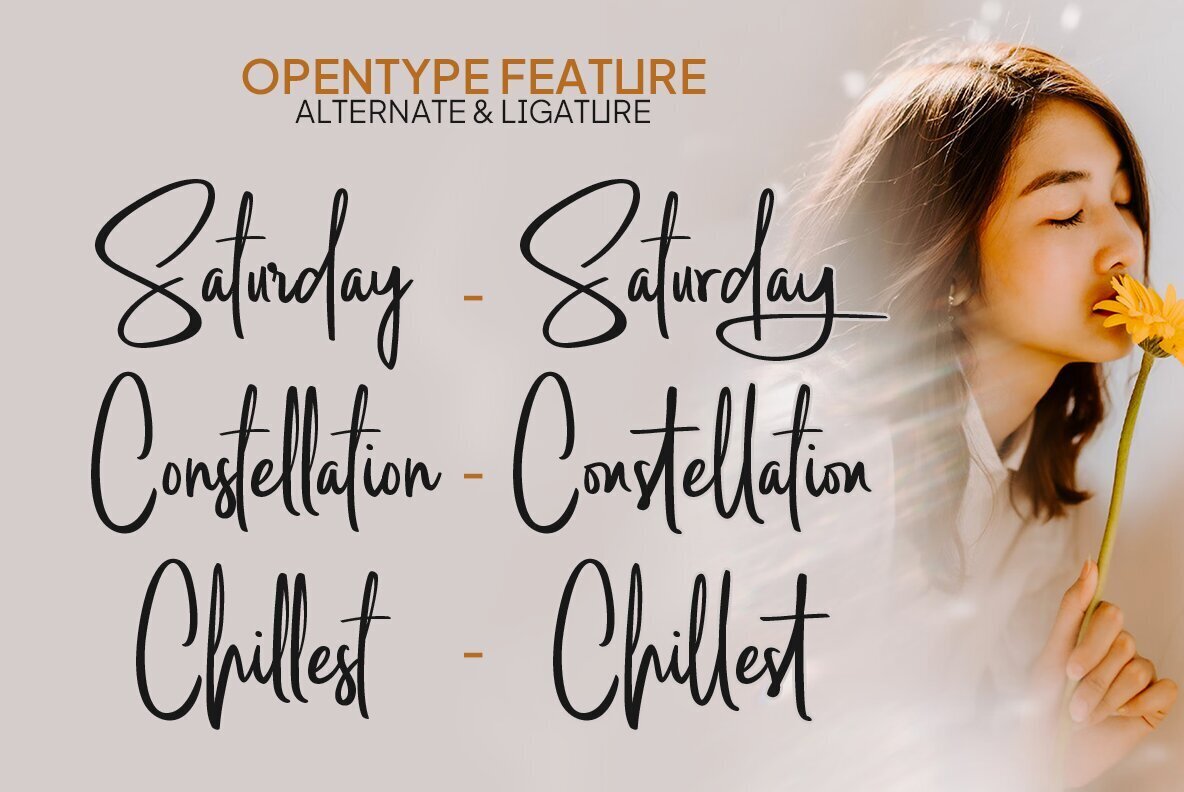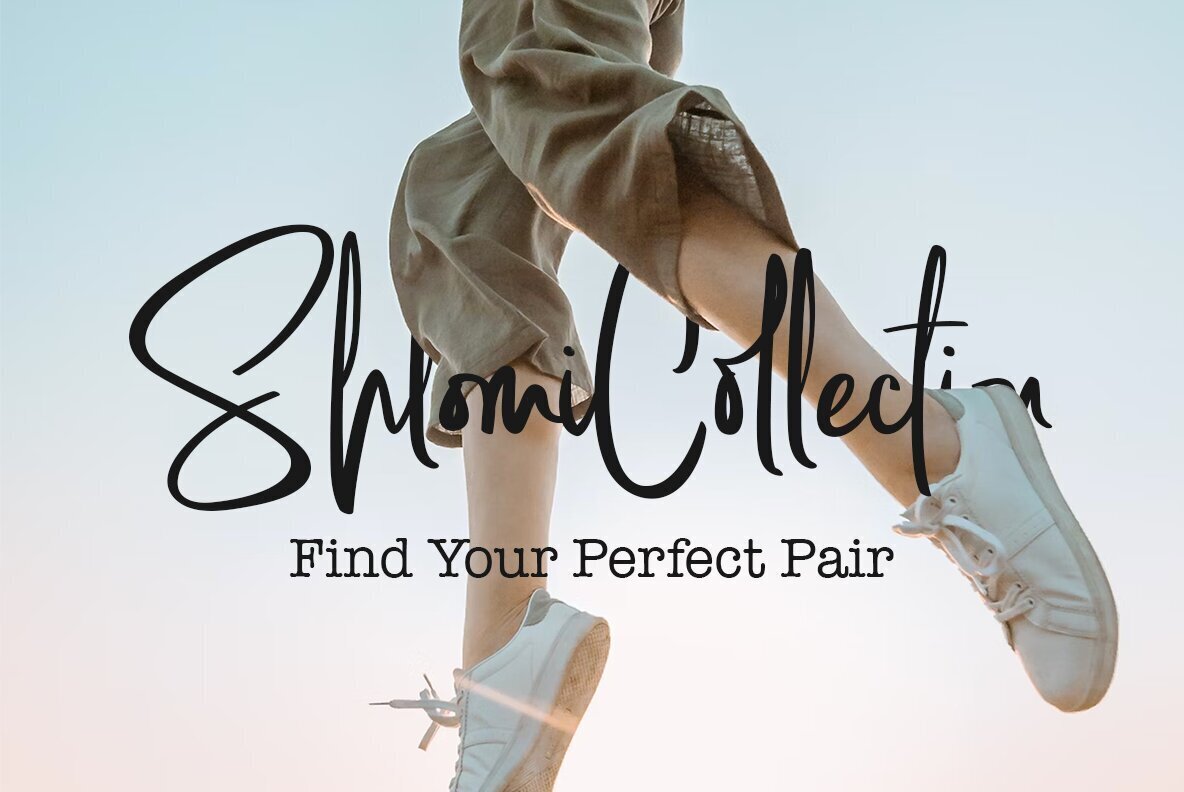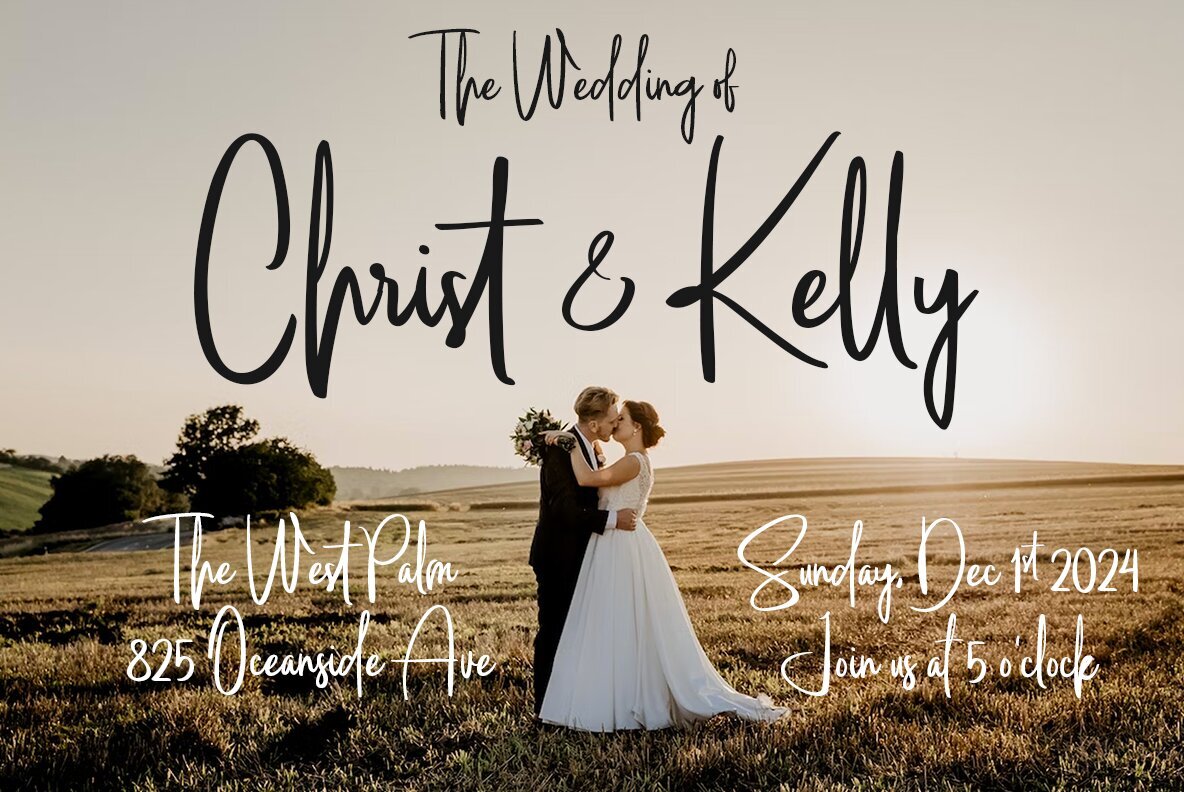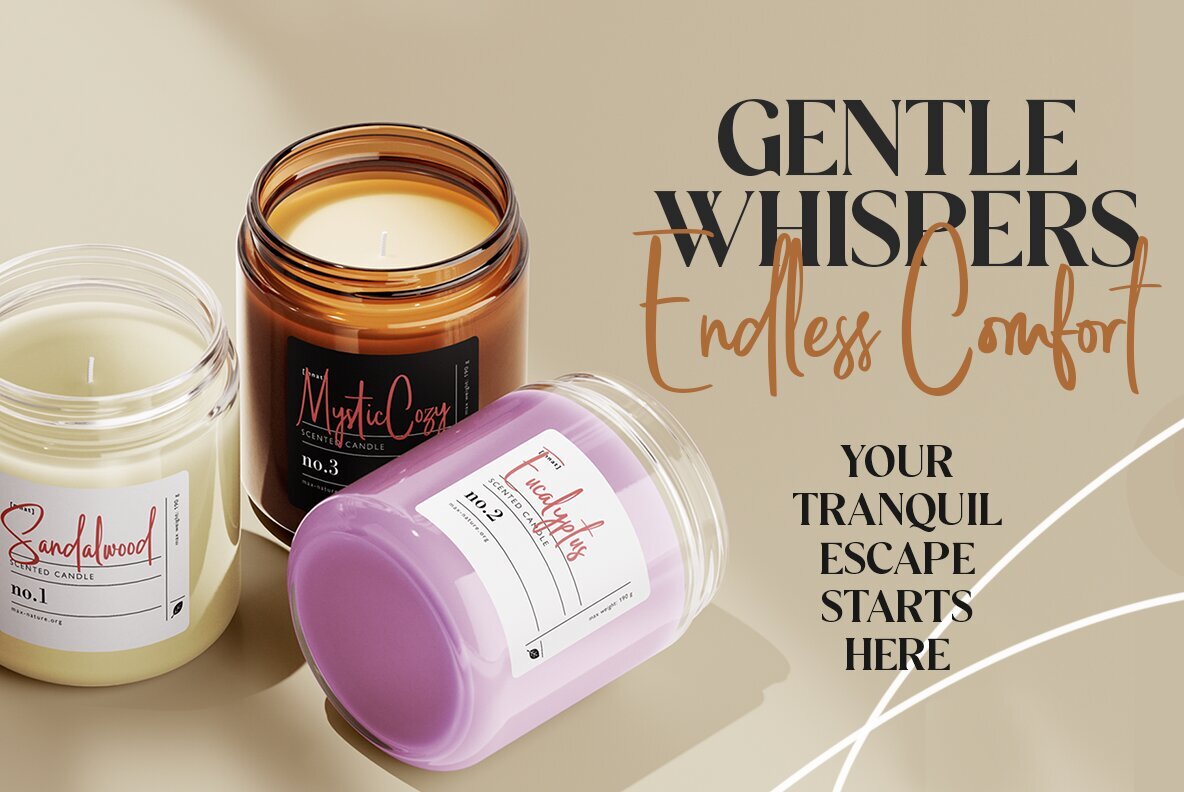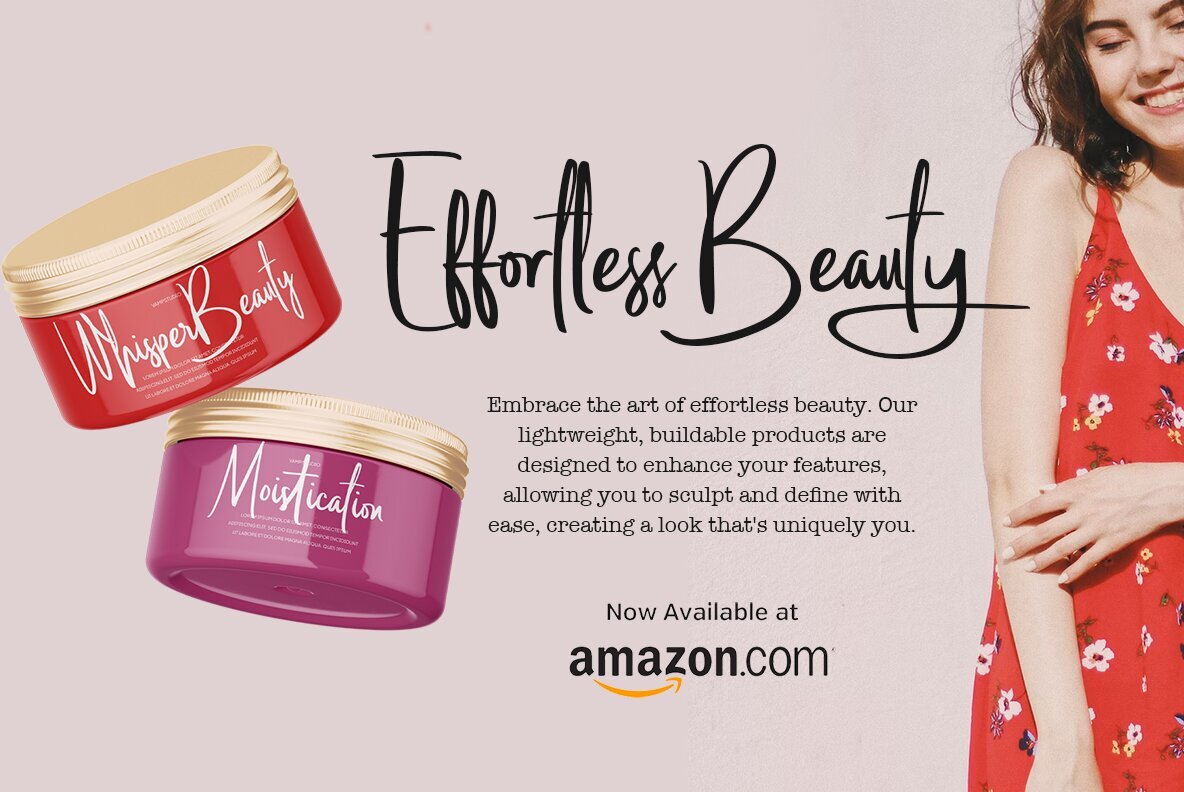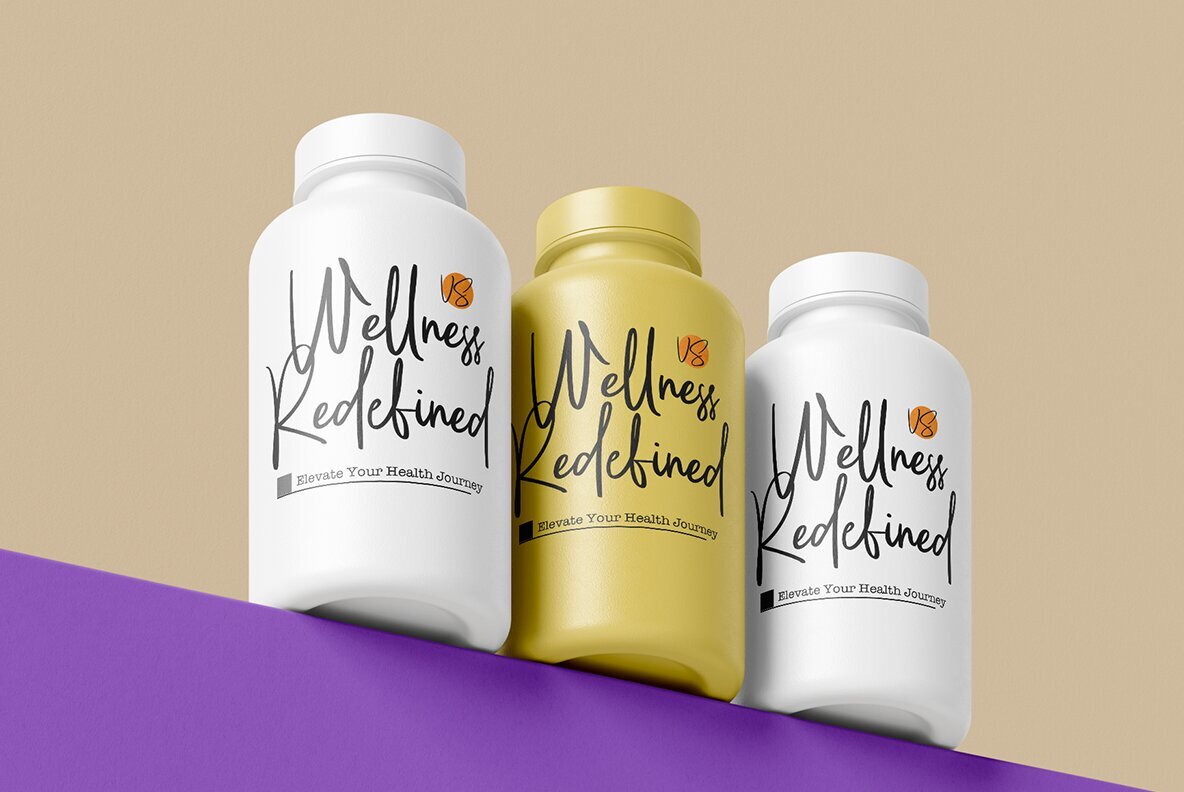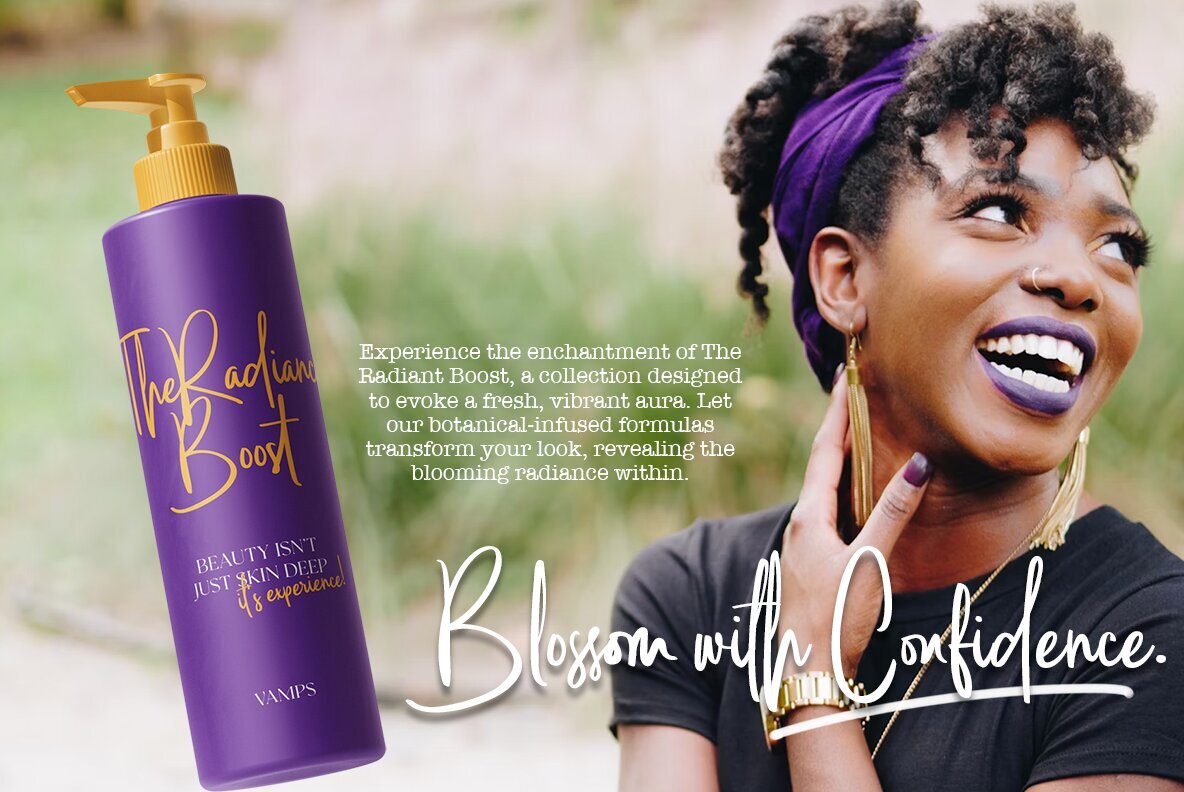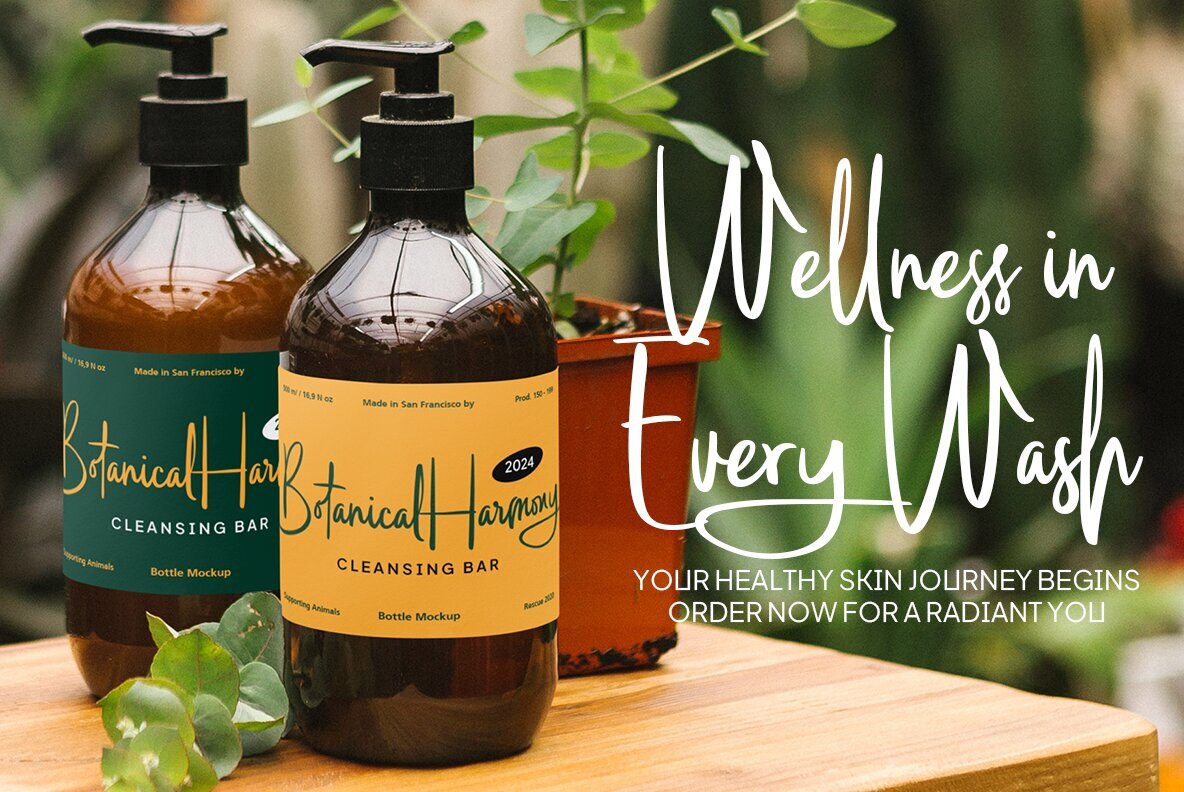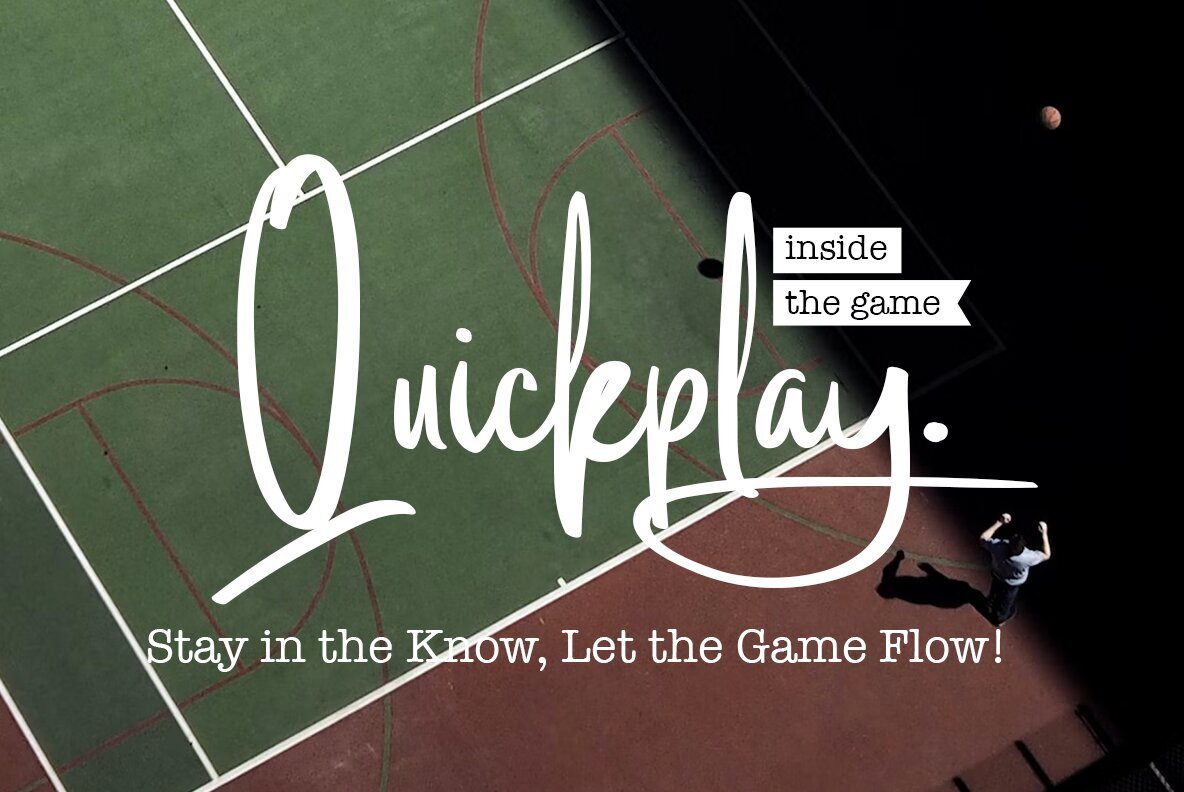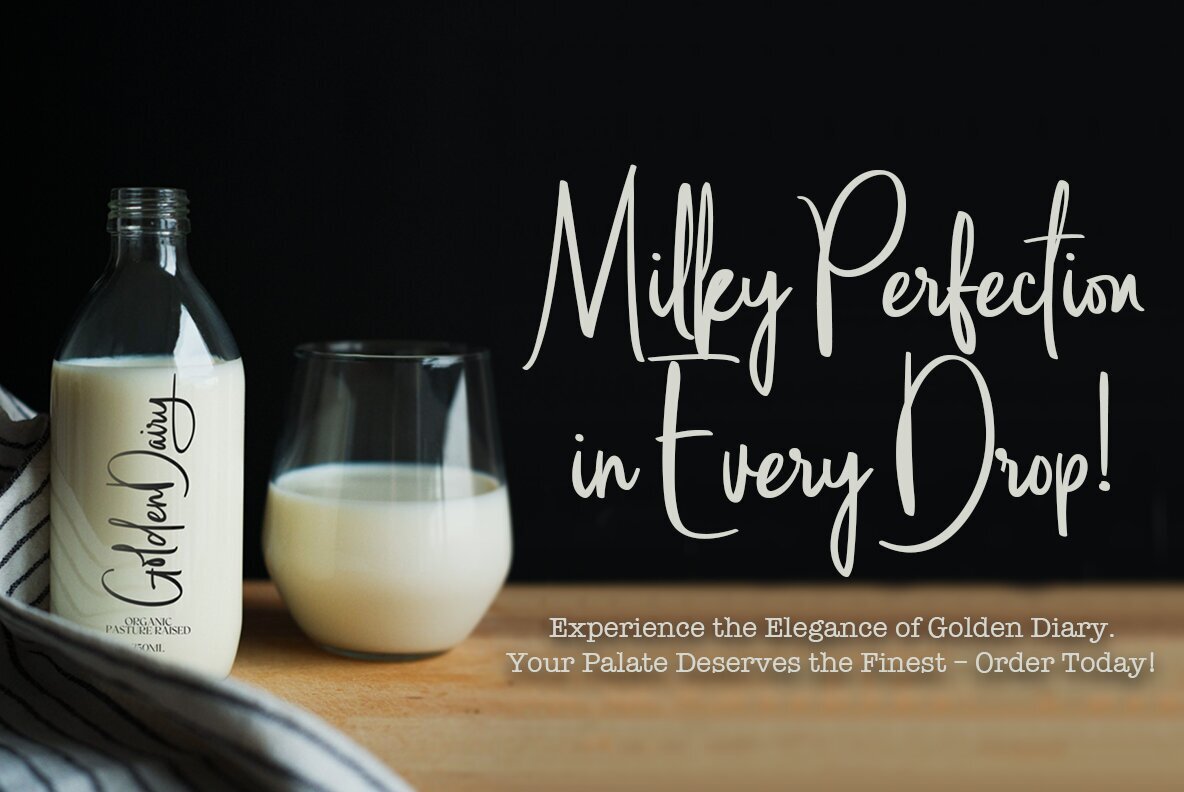
Golden Style Font
Goldenstyle Regular
Step into a world of refined sophistication with "GoldenStyle," a signature font that gracefully combines elegance and style. Perfectly designed to enhance the beauty of your projects, this font exudes timeless charm with every stroke. The GoldenStyle font is versatile and can be seamlessly integrated into various creative projects. Whether you're working on branding, logo design, wedding invitations, or social media content, this font brings a touch of handwriting authenticity and elegance.GoldenStyle: Elegance in Every Curve